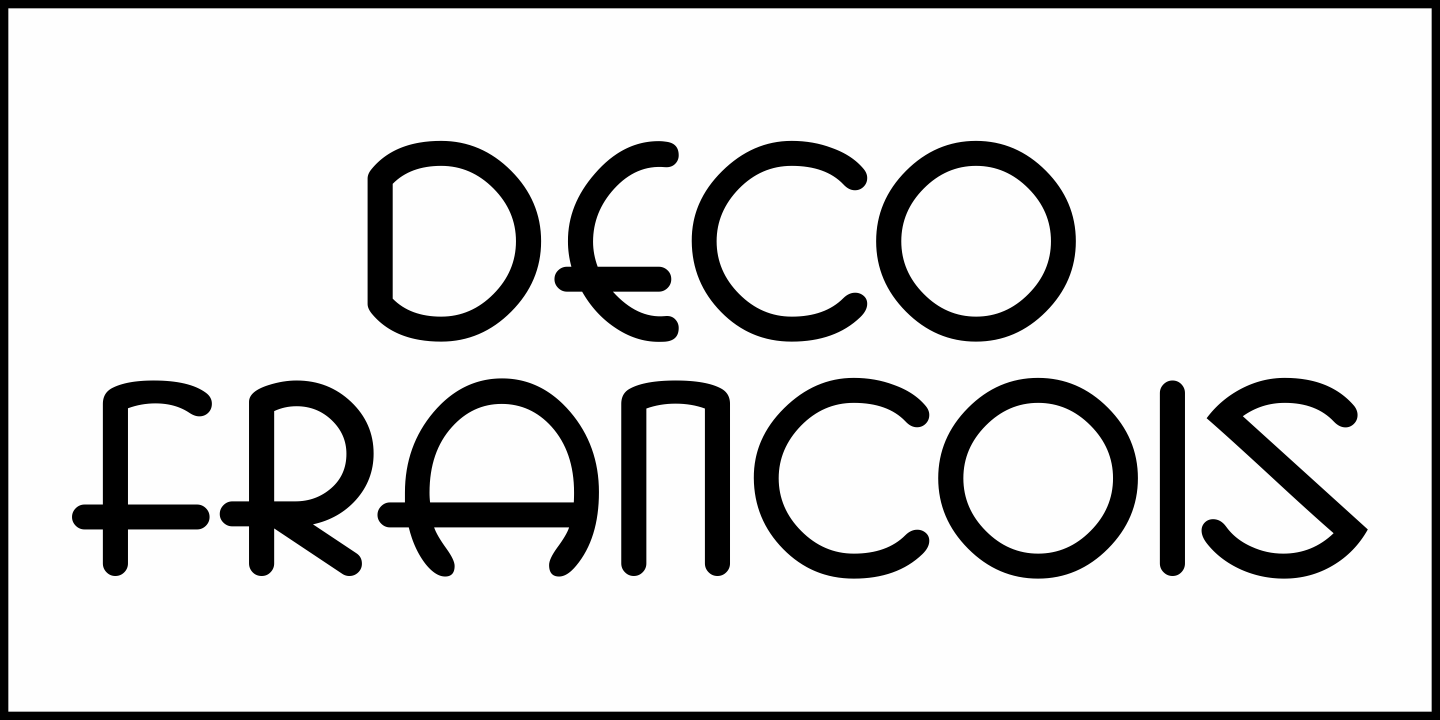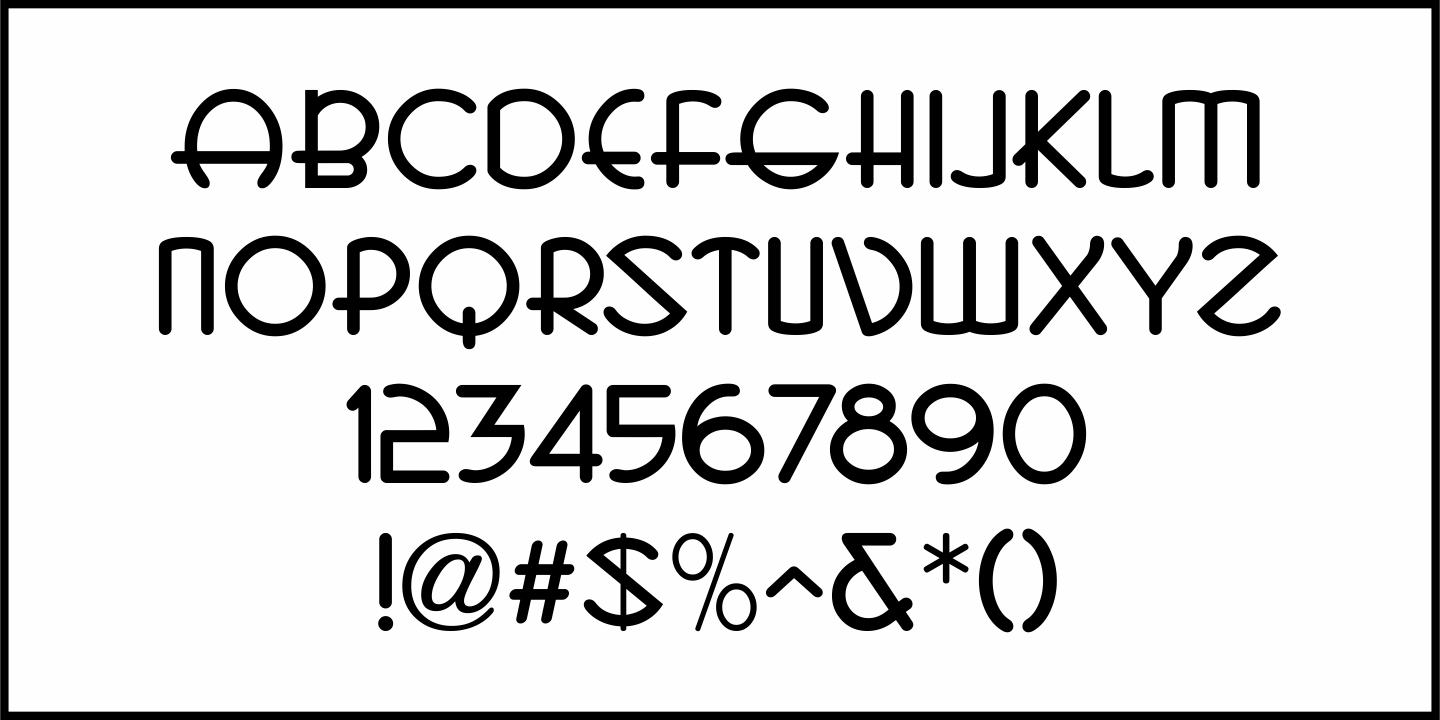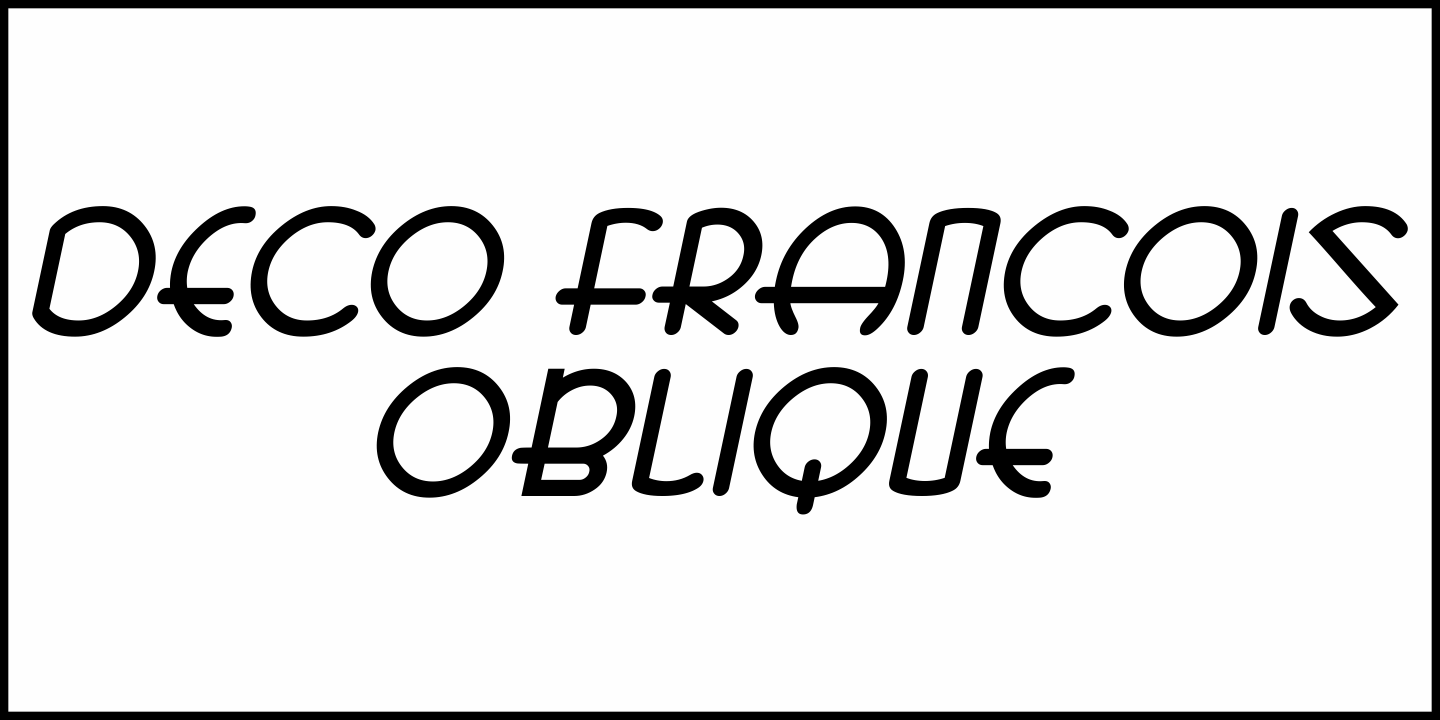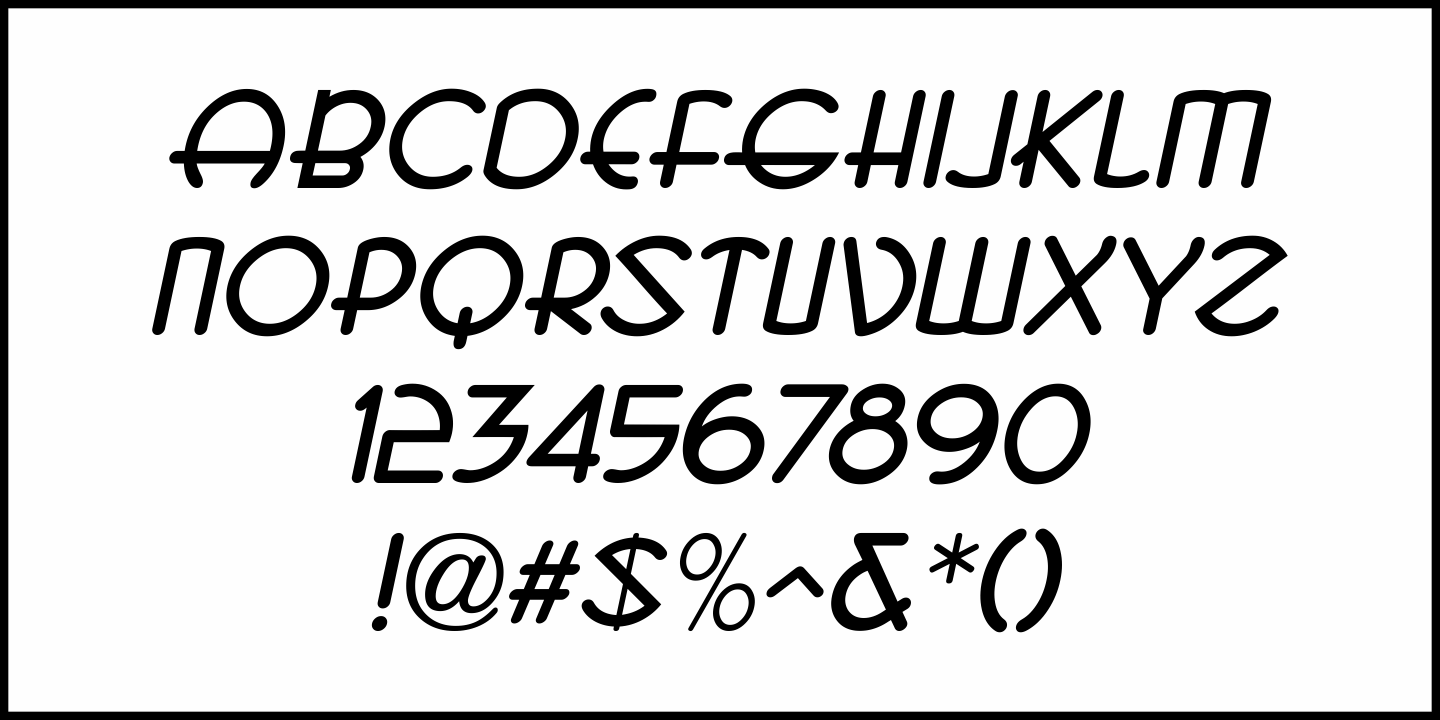
Deco Francois
The 1930s-era French alphabet collection entitled 'La Lettre Dans le Decor & La Publicite Modernes” (which somewhat translates to 'The Letter in Modern Decor and Advertising”) has page after page of attractive and unusual type interpretations.
One particular Art Deco design puts an entirely different spin on the classic 'rounded terminals and geometric design”. Unusual character shapes add a fresh new/old take to the 'Streamline Movement”.
The aptly-named Deco Francois JNL is available in both regular and oblique versions.